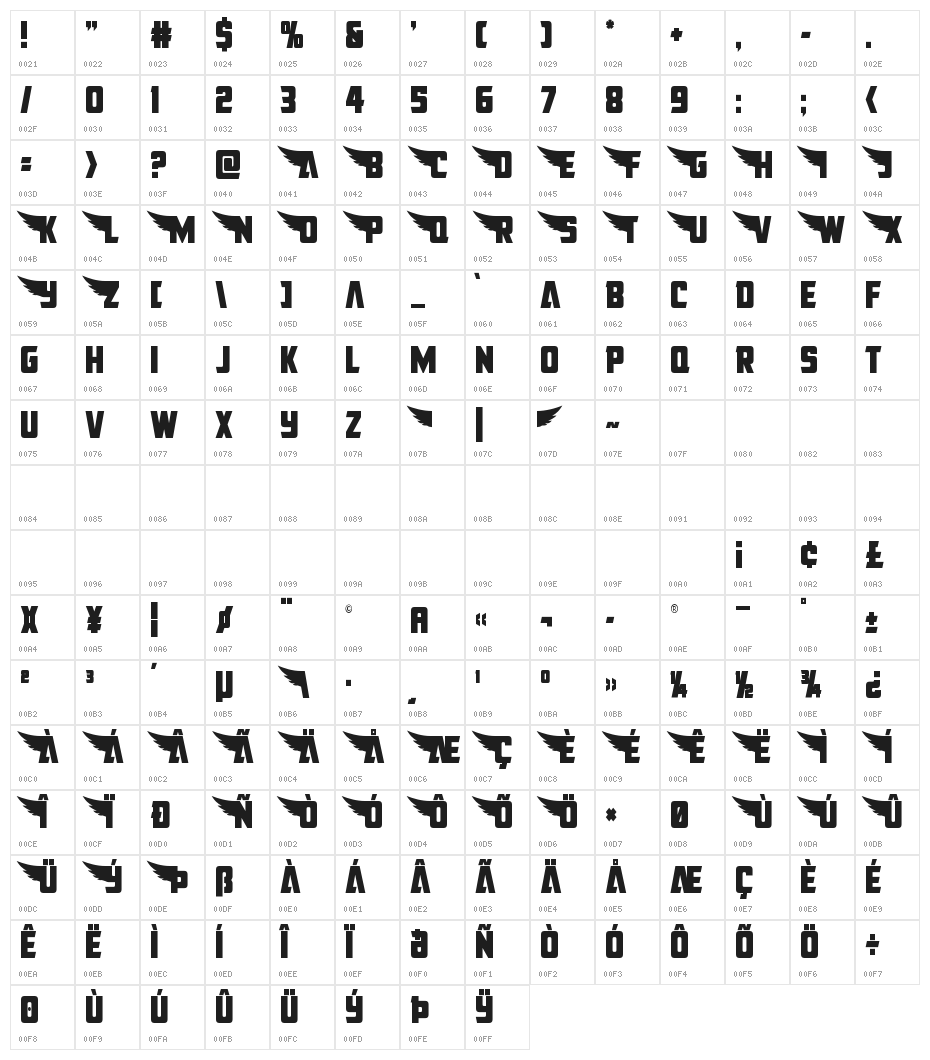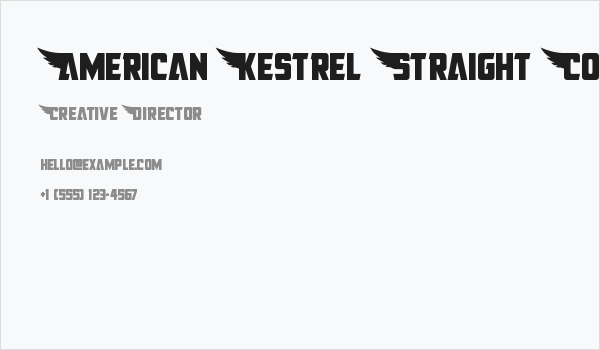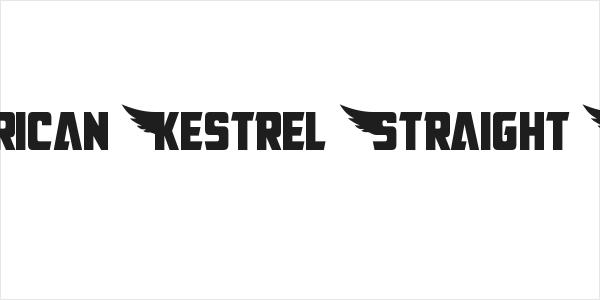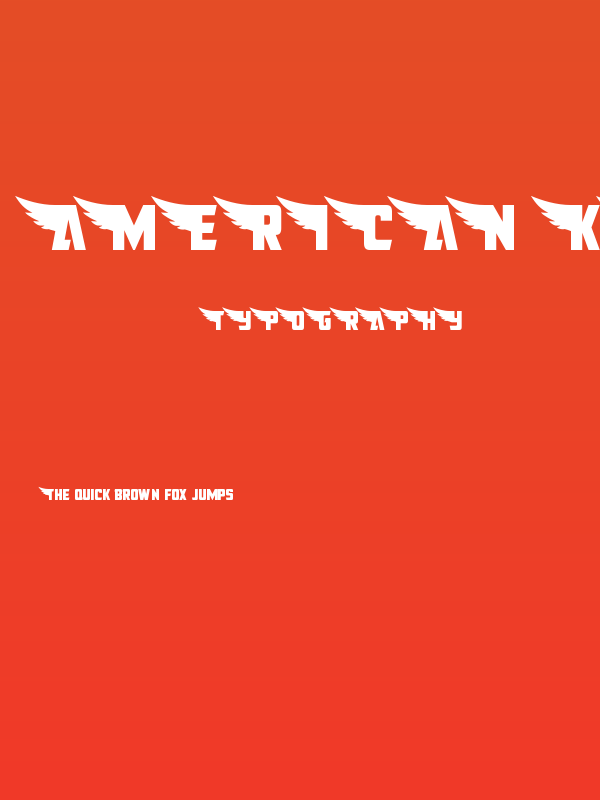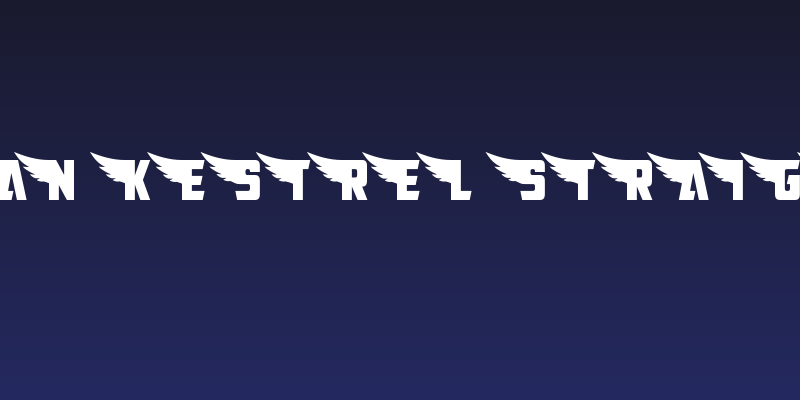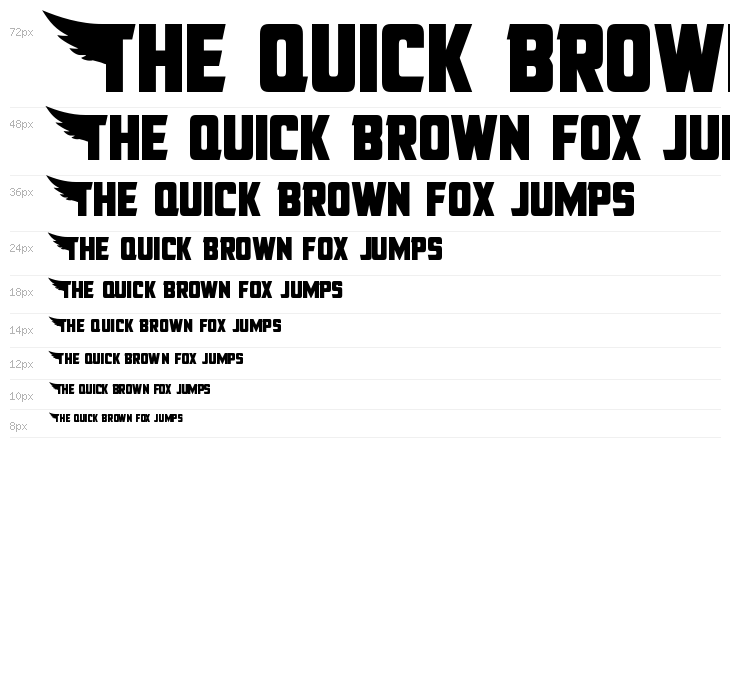
American Kestrel Straight Cond Font
| Рекомендуемые проекты | Ideal for sports branding, aviation-themed designs, dynamic posters, and logos requiring a bold statement. |